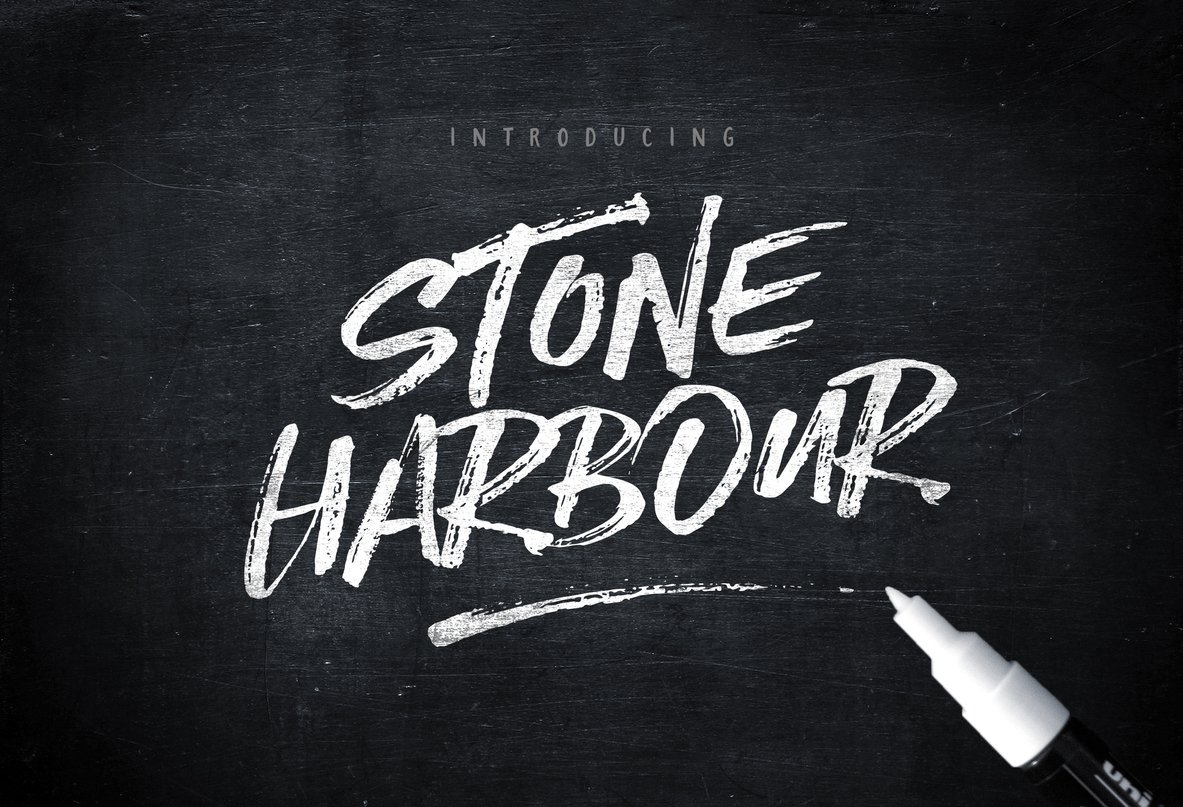
Stone Harbour Brush Font
Introducing Stone Harbour Font! ...a punchy new Dry Marker Script ..with loads of attitude and extras.
Stone Harbour font (Regular + Slanted) Stone Harbour is an all uppercase font - the uppercase being the main letters, the lowercase has alternate letters, and then there are 141 EXTRA alternate letters accessible via a glyphs panel or Opentype alternates for your designing pleasure :)
Stone Harbour Swashes font - 18 dashing swashes to add punch to your designs.
Stone Harbour Font by Nicky Laatz